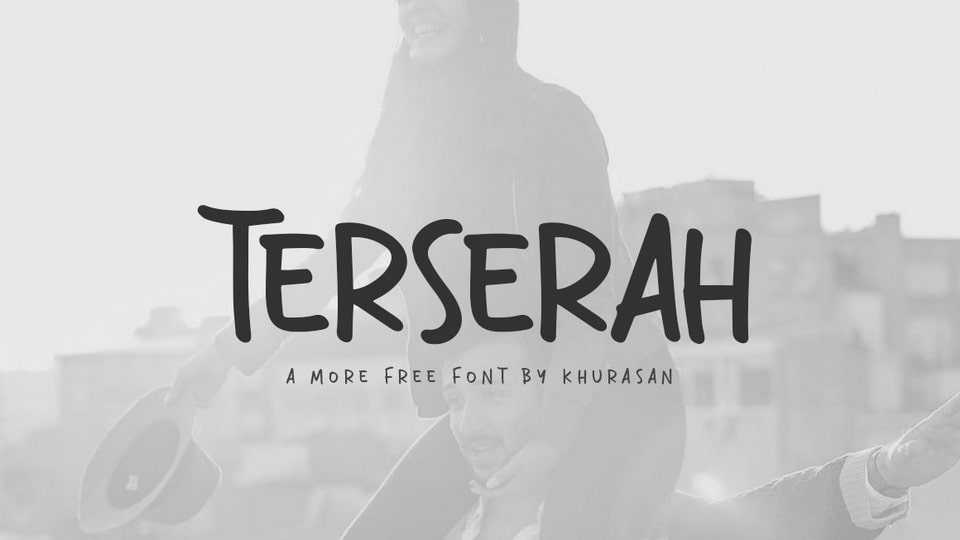
Download Terserah font, a casual all caps hand drawn typeface. Terserah is perfect for writing out quotes for Instagram posts, wall art or greeting cards, crafts, packaging or branding.